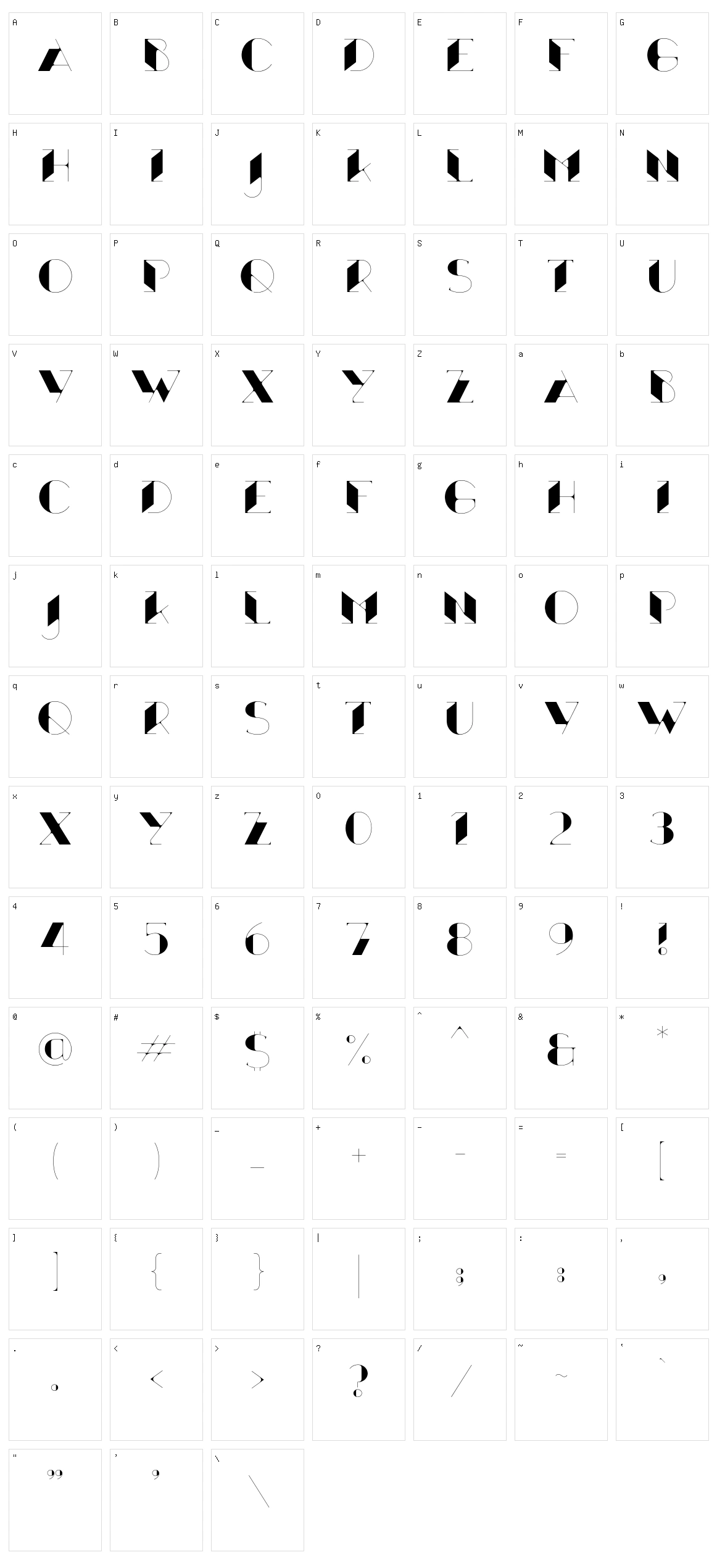
The free font Xthlx is carefully designed by Jack Thompson, showcasing a thoughtful balance of creativity and usability and falls under the Retro font style. When you download the ZIP file, it contains only 48.72 KB of font files, making it lightweight and quick to download. Please review the license details below to understand permitted usage and distribution rights. If license information is not available, we recommend using this font for personal projects only or contacting the author directly for commercial usage permissions.